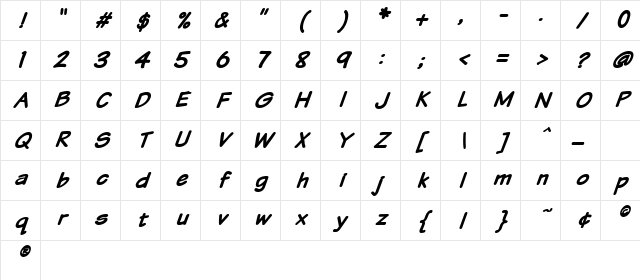
VTCSundaykomix is a composed and adaptable typeface that performs quietly and consistently across a wide range of design contexts. The slanted form adds forward momentum and visual energy. Its bold stroke weight gives it real presence on the page.
Pro Tip: Use VTCSundaykomix for emphasis, pull quotes, and subheadings where its slanted energy can add rhythm to the layout.